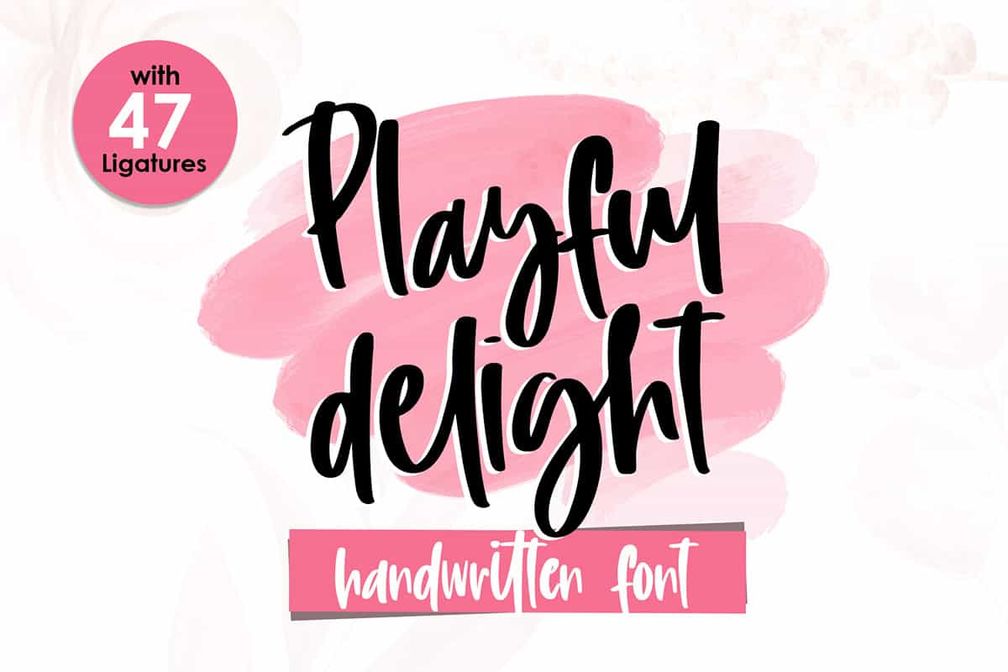
Playful Delight – Handwritten Font
The Playful Delight Handwritten Font is a whimsical and charming typeface that radiates joy and creativity. With its lively letterforms and spontaneous design, this font adds a touch of playfulness and cheerfulness to your designs, making it perfect for children’s projects, greeting cards, crafts, and other imaginative endeavors.
1. Playful and Creative Style: The Playful Delight Font exudes a fun and carefree aesthetic. Its spontaneous and energetic letterforms capture the essence of playfulness, creating a delightful and engaging look for your designs.
2. Handwritten Appeal: The font emulates the natural and fluid qualities of handwriting, adding a personal and authentic touch to your designs. It captures the free-spirited nature of a playful imagination, making it ideal for projects that require a joyful and informal typography.
3. Versatile Application: This font is versatile and well-suited for various design projects that aim to evoke a sense of creativity and delight. Use it in children’s books, greeting cards, crafts, social media graphics, and more to add a touch of whimsy and cheerfulness to your designs.
4. Uppercase and Lowercase Letters: The font includes both uppercase and lowercase letters, providing flexibility and creative freedom in your designs. Mix and match the cases to create visually appealing and harmonious typography.
5. Ligatures and Alternates: The Playful Delight Font offers a variety of ligatures and alternate characters that enhance the visual interest of your text. These special characters create unique connections between letters and alternate forms, allowing you to create captivating and expressive typography.
6. Punctuation and Symbols: In addition to the alphabet, the Playful Delight Font includes a comprehensive set of punctuation marks, numerals, and common symbols. This ensures consistency and ease of use when incorporating the font into your design projects.
Infuse your designs with the whimsy and joy of the Playful Delight Handwritten Font. Let its lively letterforms and spontaneous design bring a touch of playfulness and cheerfulness to your children’s projects, greeting cards, and crafts. Embrace the carefree spirit of this font and create designs that inspire creativity and delight.